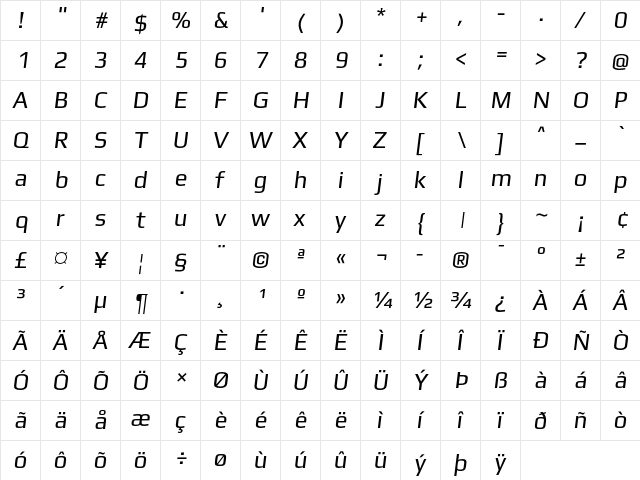
Gamestation Text Italic
| Foundry | Jonas Hecksher, Playtype-types AS |
| Designer | Jonas Hecksher |
Design Context for Gamestation Text Typeface
Gamestation Text is a composed and adaptable typeface that performs quietly and consistently across a wide range of design contexts. The slanted form adds forward momentum and visual energy.
Pro Tip: Use Gamestation Text for emphasis, pull quotes, and subheadings where its slanted energy can add rhythm to the layout.